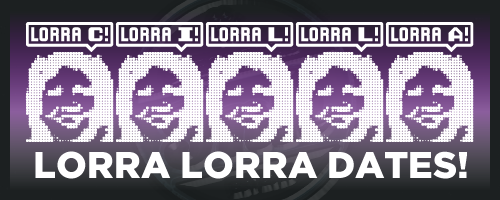
Lorra Lorra Dates!
Yes, I made a font based on Cilla Black and her Blind Date catchphrase. Yes, it took a not-insignificant amount of time!
Making the preview image was hellish, and nearly took as long as the font!